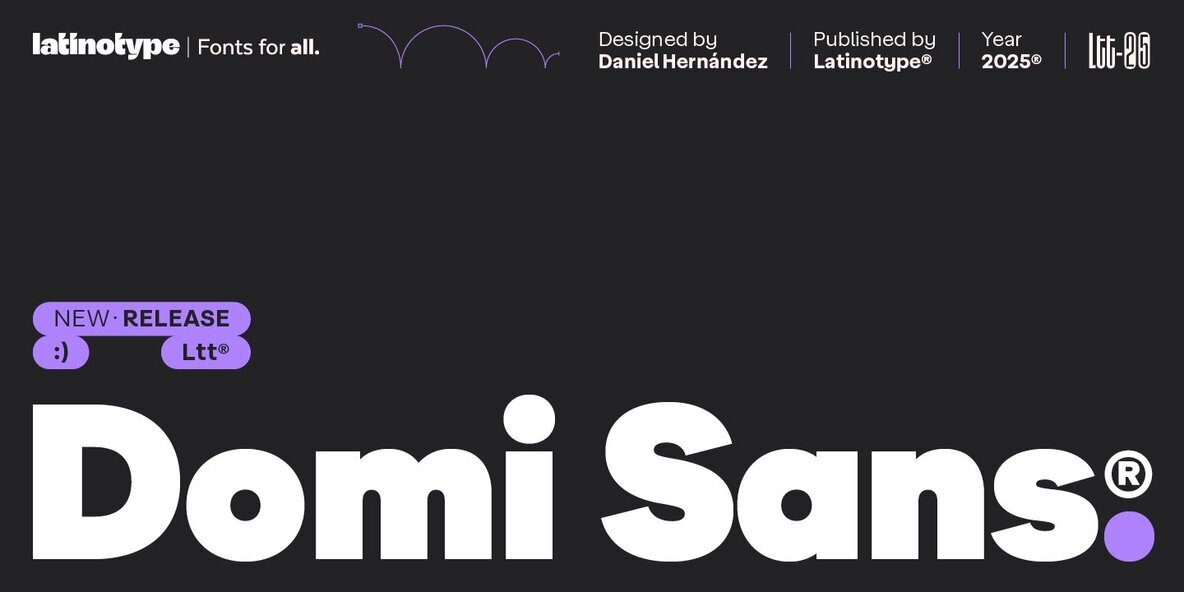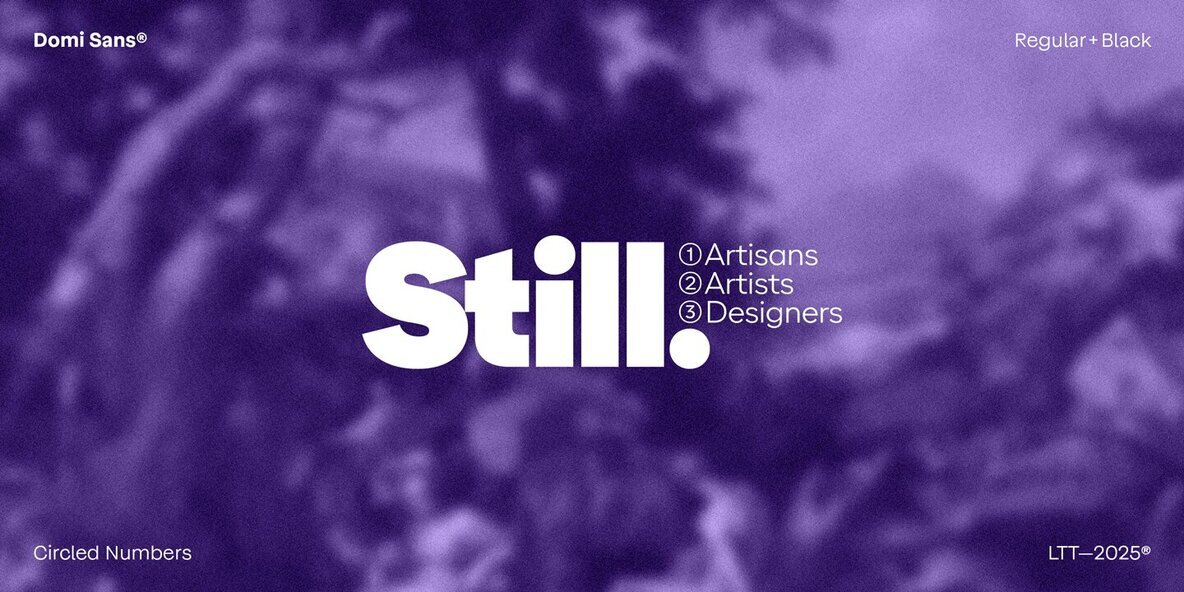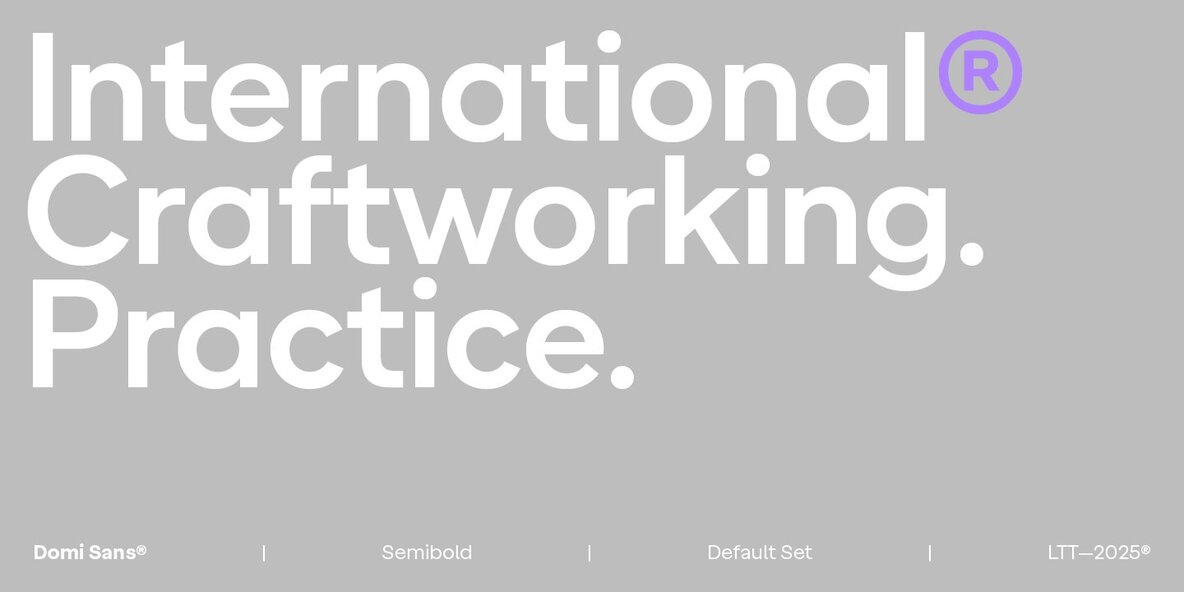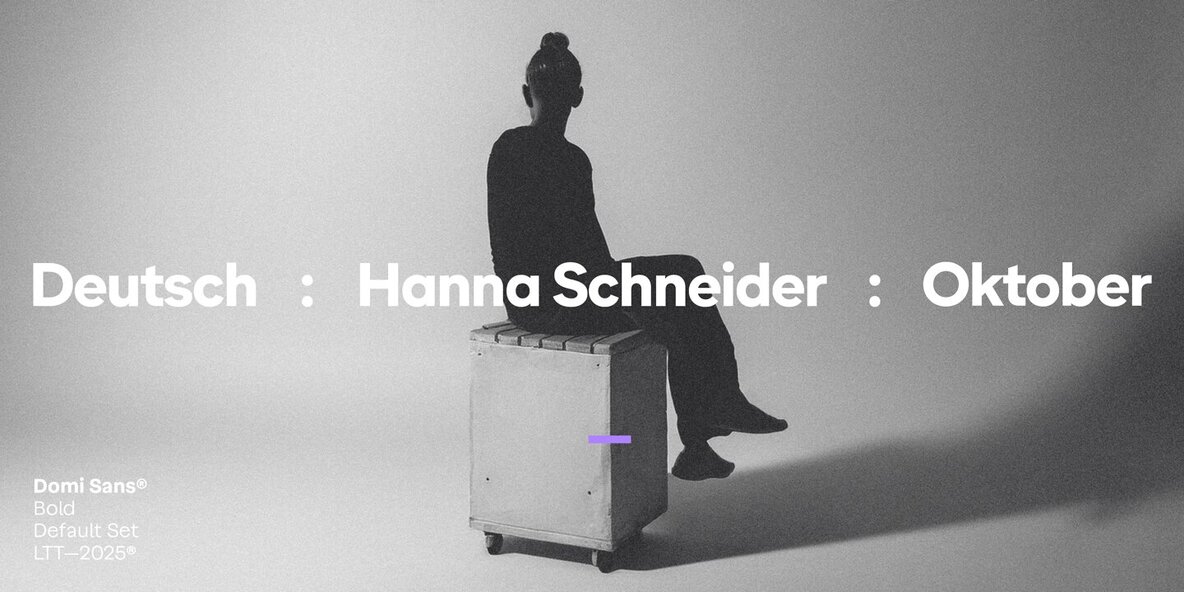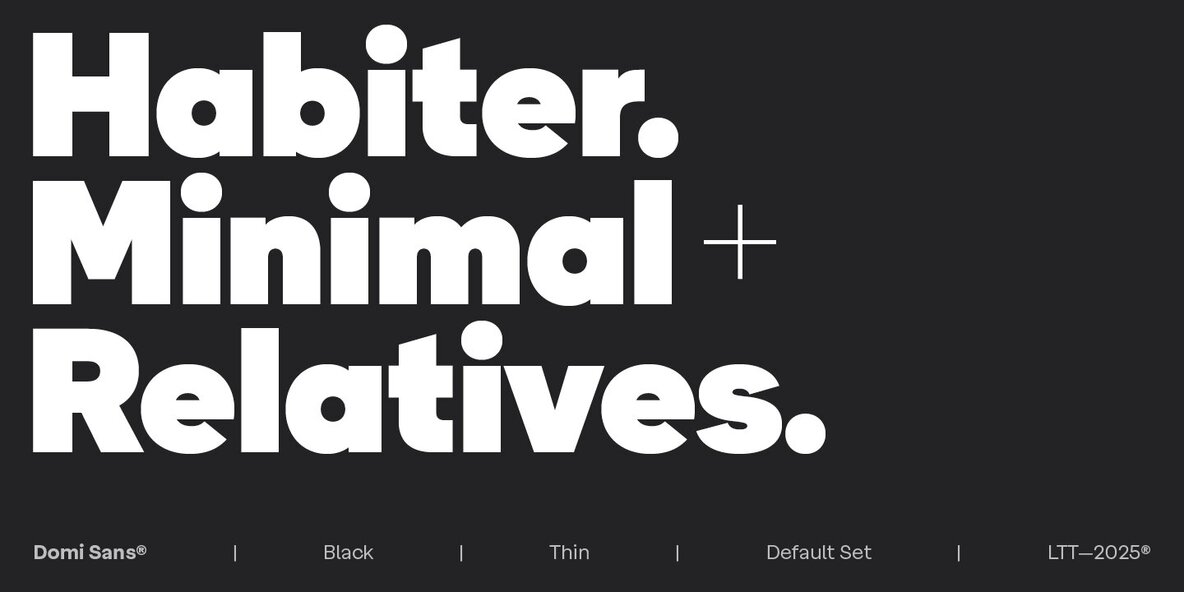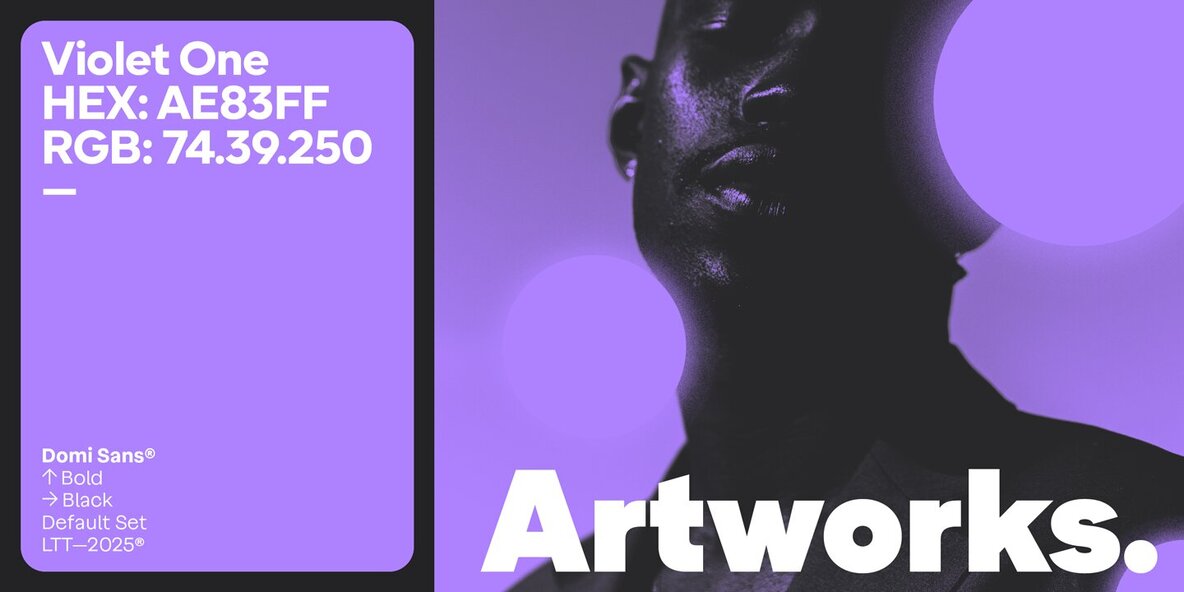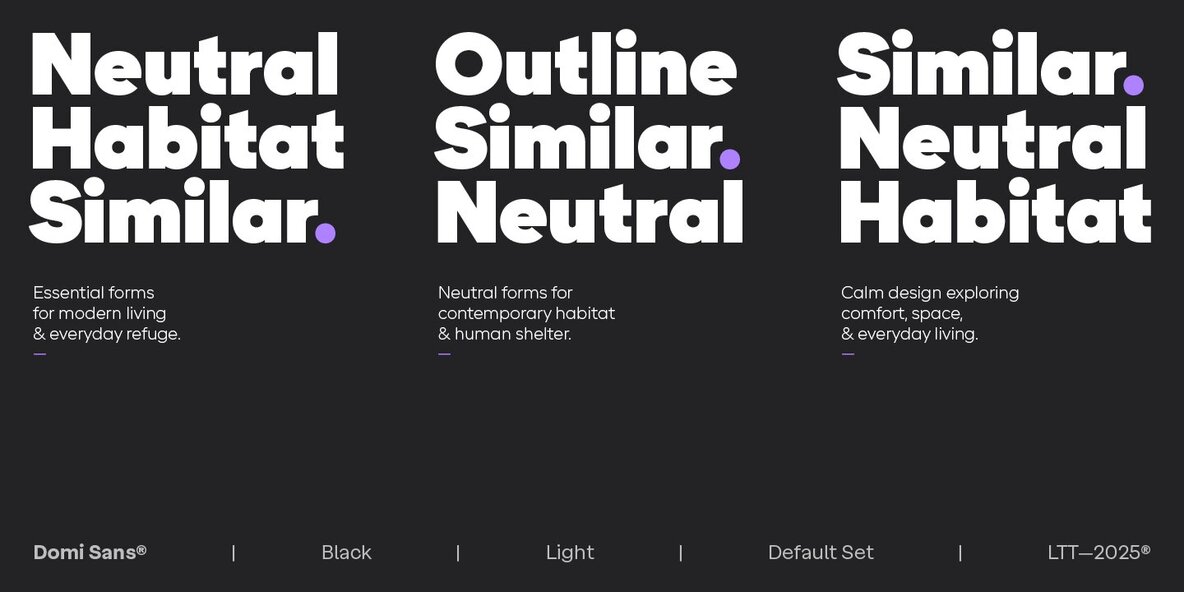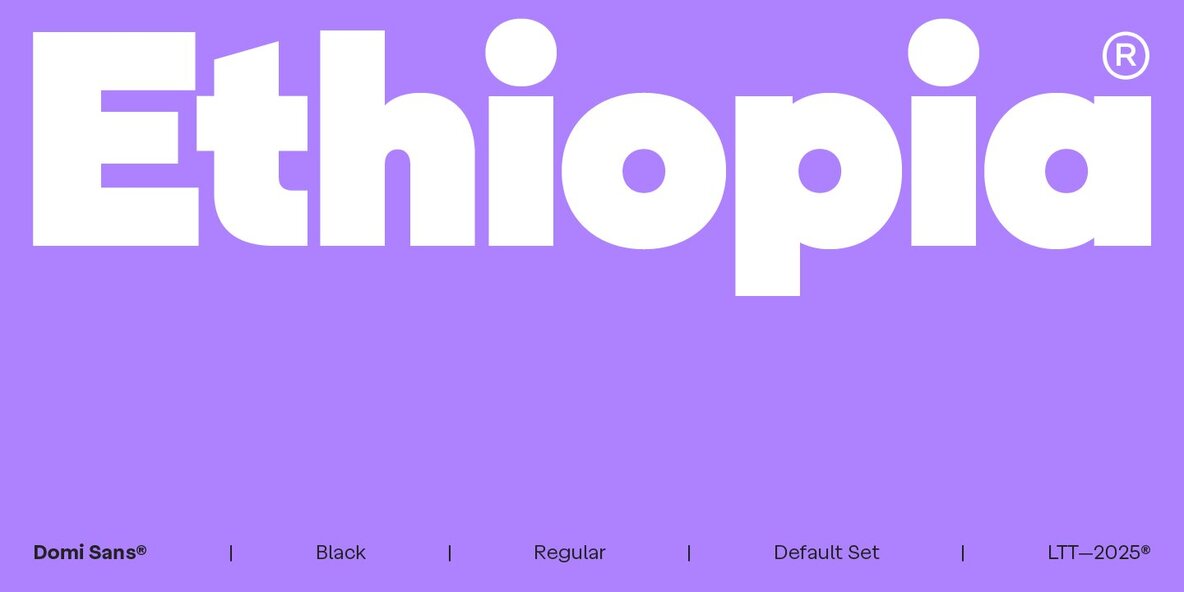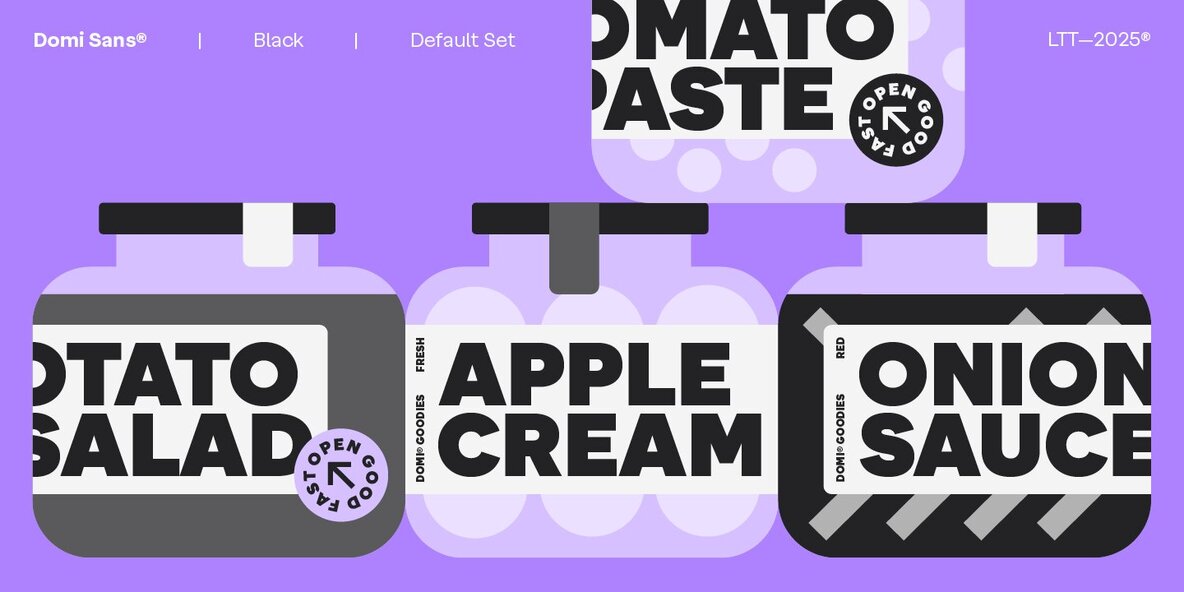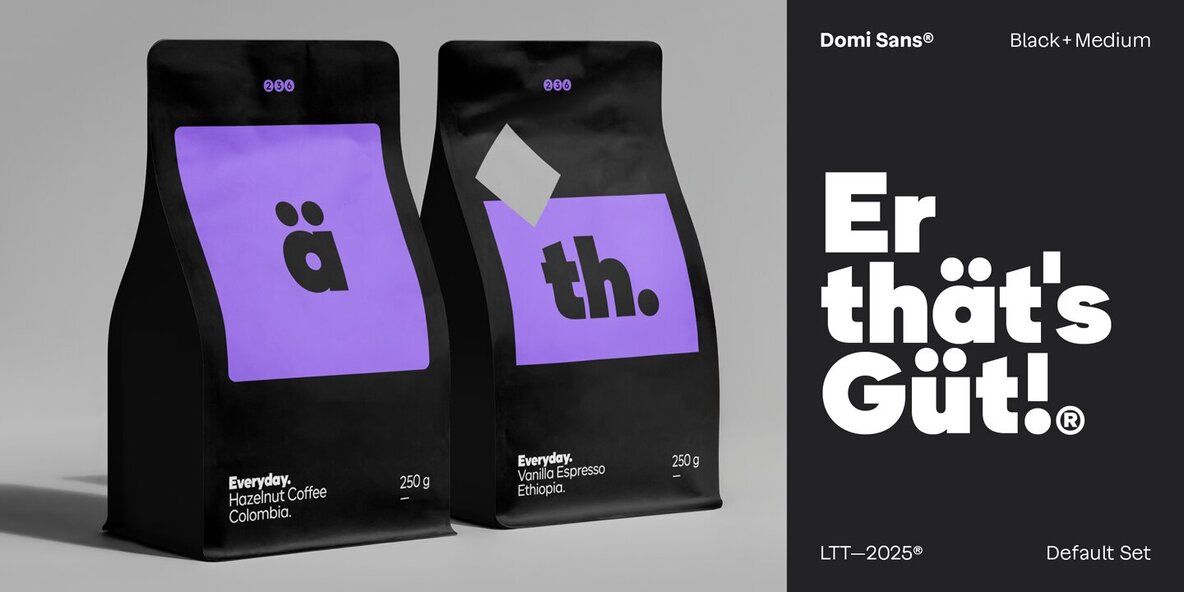
Domi Font
Domi is a robust sans serif typeface embodying the powerful interplay of weights from Thin to Black. Characterized by closed forms and straight terminals, its design delivers both confidence and personality. The typeface, created by Daniel Hernández for Latinotype, skillfully balances counterforms and rhythm, making it ideal for typographic hierarchies and dense text settings. The typeface's firm capital letters enhance its versatility, adapting seamlessly to diverse applications such as industrial design, fashion, cultural settings, signage, and graphic identities. Its geometrically-based lowercase contributes to structural clarity and style. Domi deftly revisits the rationalism of 20th-century typography, infusing it with a modern logic that supports adaptable and effective visual systems.Domi: Bold Sans Serif for Modern Design